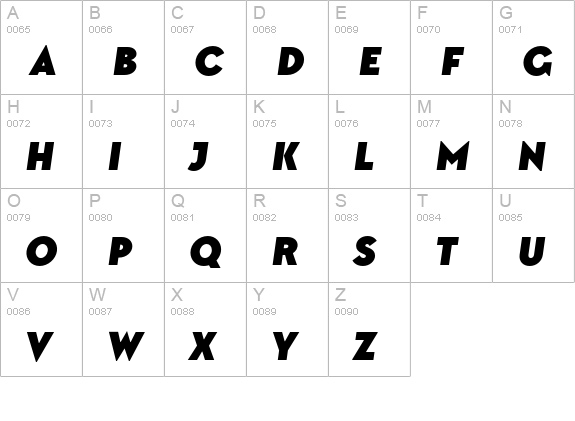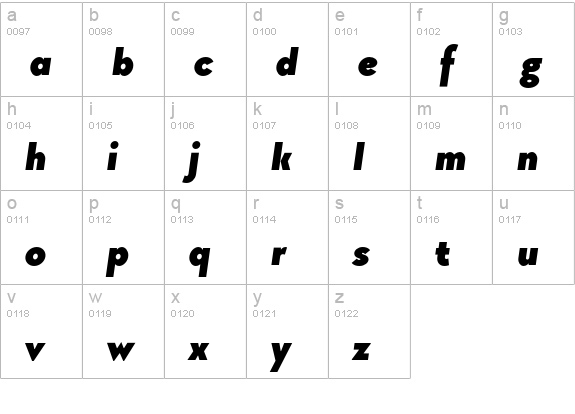
TT Chocolates Black Italic Font Details
TT Chocolates Black Italic is a maximum-weight, dramatic, italic variant in the TT typeface family \xE2\x80\x94 well suited to maximum-impact headlines, posters, and packaging.
The TT Chocolates Black Italic font is a bold and elegant typeface that exudes sophistication and modernity. With its sleek design and unique italic style, this font is perfect for adding a touch of luxury to any project. Whether you're creating a logo, designing a website, or crafting a print advertisement, TT Chocolates Black Italic will make a statement. And the best part? This stunning font is available for free download at FontsMarket.com. So you can elevate your design projects without breaking the bank. Don't miss out on the opportunity to enhance your work with the TT Chocolates Black Italic font today!